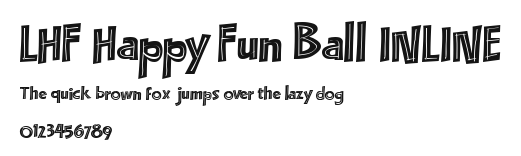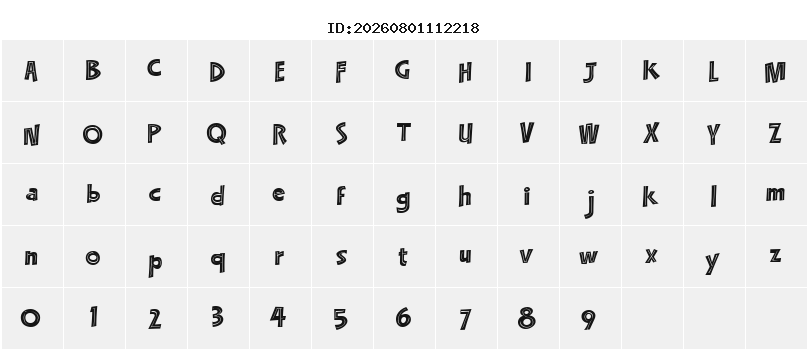
• Font Name: LHF Happy Fun Ball INLINE
• Font ID: LHF Happy Fun Ball INLINE
• Full Font Name: LHF Happy Fun Ball INLINE
About LHF Happy Fun Ball INLINE.ttf
LHF Happy Fun Ball INLINE.ttf is a modern, elegant sans-serif font designed for ultimate readability and visual harmony. Perfect for branding, headlines, web design, and print materials.